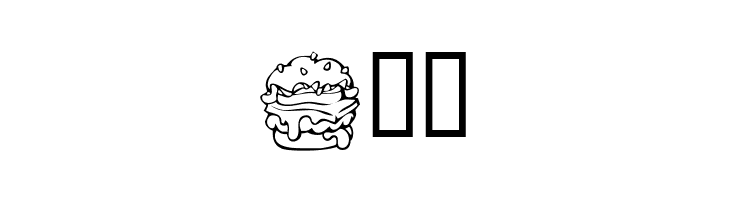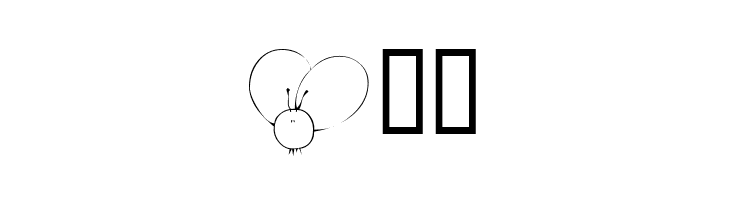
• KR Circle Scraps
A playful collection of circular cartoon character illustrations.
• KR Classic Fleur 2
A decorative font with intricate floral illustrations replacing standard characters.
• KR Crazy Crow
A whimsical, cartoon crow-themed decorative font with expressive characters.
• KR Crazy Crow
A playful, crow-themed decorative font with cartoonish characters.
• KR Cute As A Bug
A whimsical font with insect illustrations replacing traditional characters.
• KR Fast Food
A playful decorative font featuring fast food illustrations for each character.
• KR Fleur Flair 1
An ornate and decorative font with intricate swirls and flourishes.
• KR Fleur Flair 2
A decorative font with swirling, floral motifs and high contrast strokes.
• KR Fleur Flair 3
An artistic, floral-inspired decorative font with intricate embellishments.